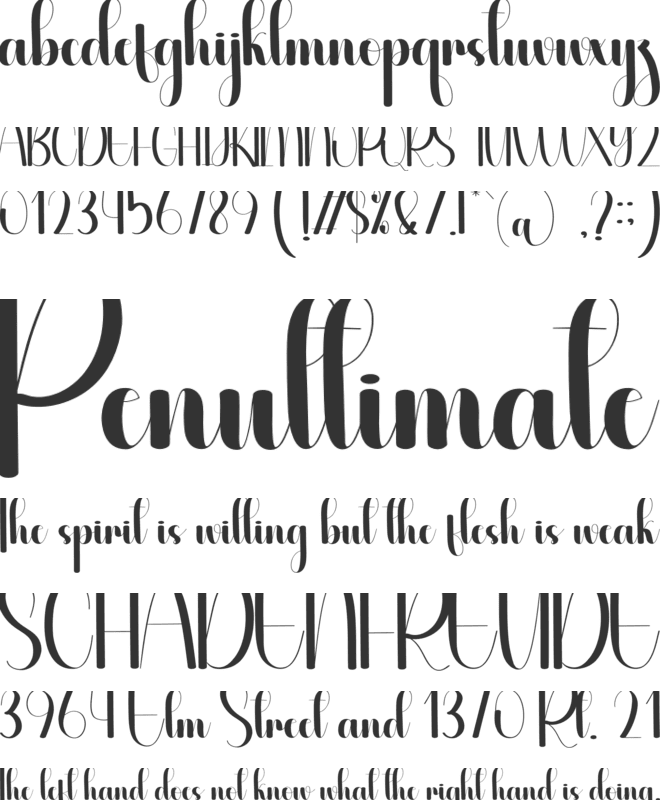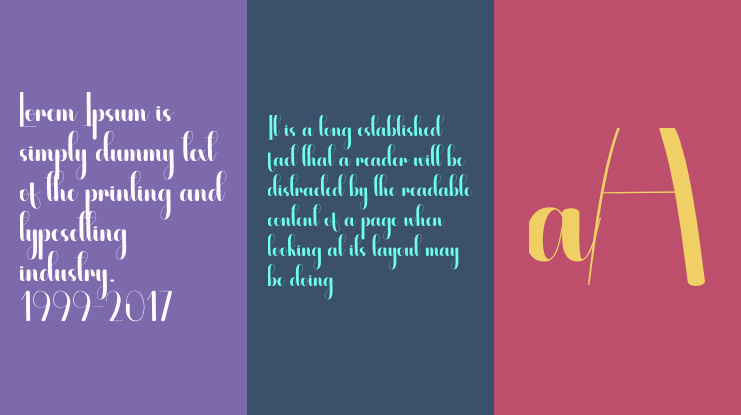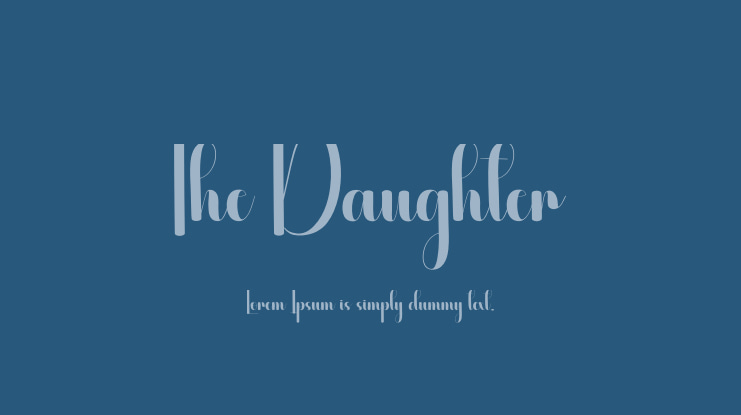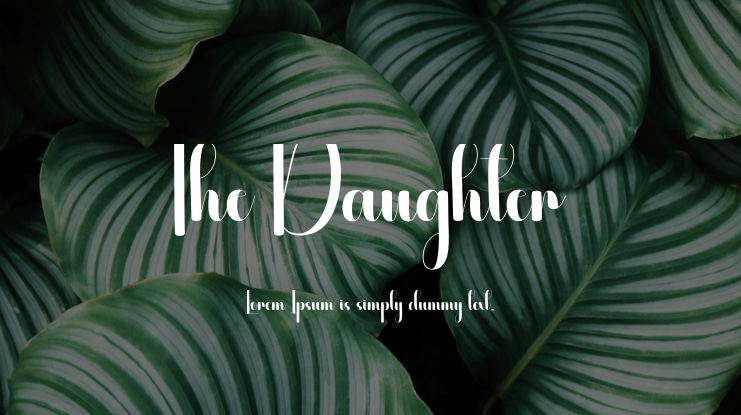
The Daughter Font
We offer special creative products that provide an extraordinary experience. Our products feature the latest stylistic letters, ideal for wall displays, wedding invitations, social media post logos, advertisements, product packaging, product designs, labels, photography, watermarks, invitations, stationery, and any project that requires elegant handwriting.